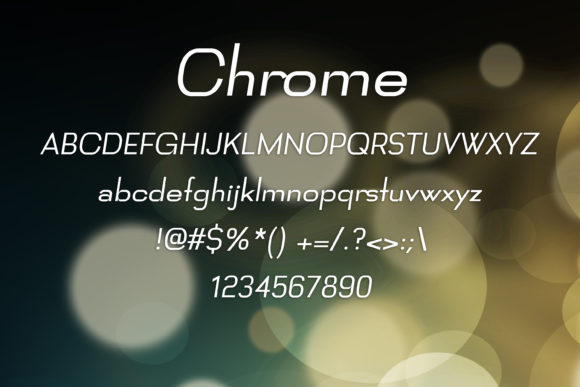
The Ultimate Guide to Chrome Font: Elevate Your Designs with Elegance and Clarity
I’ll never forget the time I was working on a high-stakes branding project for a luxury client. I had spent hours crafting the perfect logo, but something was off. The font I had chosen just wasn’t delivering the level of sophistication and elegance that the brand required. That’s when I stumbled upon Chrome Font, and it completely transformed my design. In this article, I’ll share my love for Chrome Font, its features, and how to get the most out of it.
An Honest Review of Chrome Font
So, what makes Chrome Font so special? Let’s dive into the good stuff and a few quirks I’ve discovered.
What I Love About Chrome Font ✨
- ✅ Clean and elegant design: Chrome Font boasts an incredibly clean and elegant style that screams sophistication.
- ✅ Exceptional legibility: This font delivers messages with confidence, legibility, and clarity, making it perfect for a wide range of design projects.
- ✅ Versatility: Chrome Font is a display font that can be used for headings, titles, and even short paragraphs.
While Chrome Font is an excellent choice, there are a few things to keep in mind:
- ⚠️ Limited use in body text: Due to its elegant and italic nature, Chrome Font might not be the best choice for lengthy body text.
- ⚠️ Requires careful pairing: As with any font, Chrome Font requires careful pairing with other fonts to ensure harmony in your design.
The Backstory of Chrome Font
While the origins of Chrome Font are unclear, it’s likely that the designers aimed to create a font that exudes elegance, sophistication, and clarity. The result is a versatile font that can elevate a wide range of design projects, from luxury branding to elegant stationery.
| Font Name | Chrome Font |
| Author | dmytroyarish |
| What is Chrome Font best used for? | Chrome Font is best used for headings, titles, and short paragraphs where elegance and clarity are essential. |
| Can I use Chrome Font for body text? | While possible, Chrome Font might not be the best choice for lengthy body text due to its elegant and italic nature. |
| Is Chrome Font suitable for digital use? | Yes, Chrome Font is suitable for digital use, including websites, social media, and digital marketing materials. |